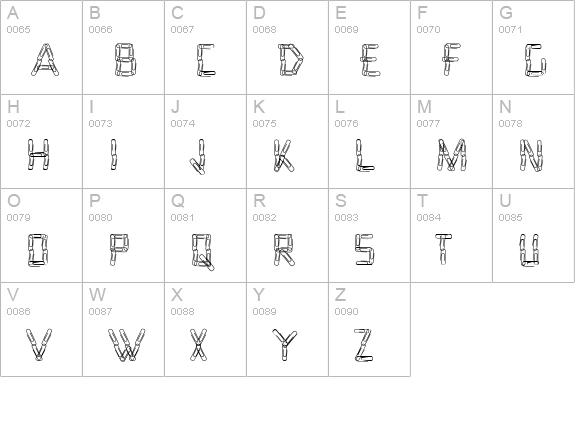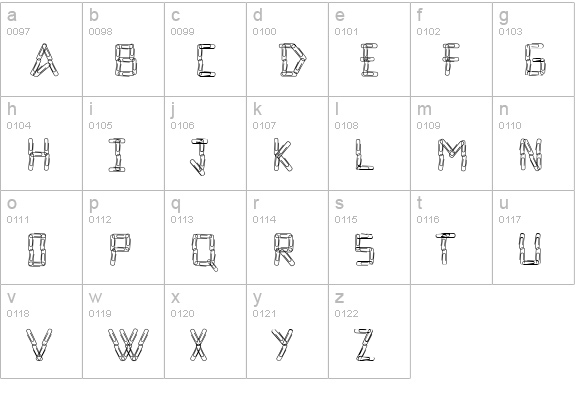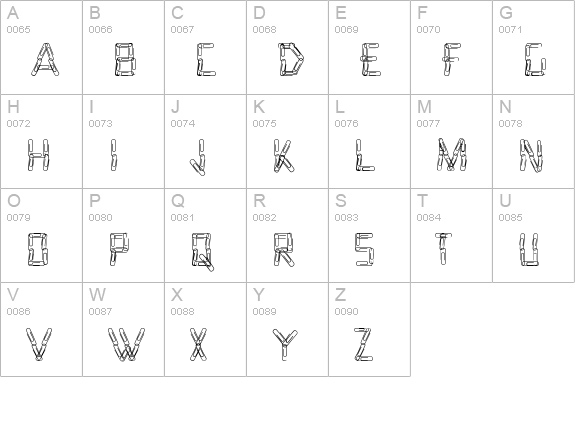
KlipJoint Font Details
Introducing KlipJoint, a stunningly versatile and beautifully crafted font that is sure to make a lasting impression. With its clean lines and modern aesthetic, KlipJoint is the perfect choice for a wide range of design projects. Whether you're creating eye-catching logos, captivating headlines, or elegant invitations, this font will effortlessly elevate your work to new heights. What sets KlipJoint apart is not just its exceptional design, but also its accessibility. This font is freely available to download at FontsMarket.com, ensuring that it can be enjoyed by designers, creatives, and enthusiasts alike, without any barriers. With KlipJoint, you have the freedom to bring your vision to life, without any limitations. The carefully designed letterforms of KlipJoint exude a sense of sophistication and professionalism, making it suitable for both personal and commercial use. Its wide range of weights and styles allow for endless creative possibilities, ensuring that you can find the perfect fit for any project. KlipJoint is incredibly easy to work with, thanks to its well-balanced proportions and legibility. Whether used at large sizes or small, this font remains clear and readable, ensuring that your message is effectively conveyed. Its versatility extends to multiple languages, making it a truly global font that can be used with ease in various contexts. Unlock your creative potential with KlipJoint. Download this extraordinary font for free at FontsMarket.com and experience the freedom to create exceptional designs that captivate and inspire. With KlipJoint, the possibilities are limitless, and your imagination is set free.